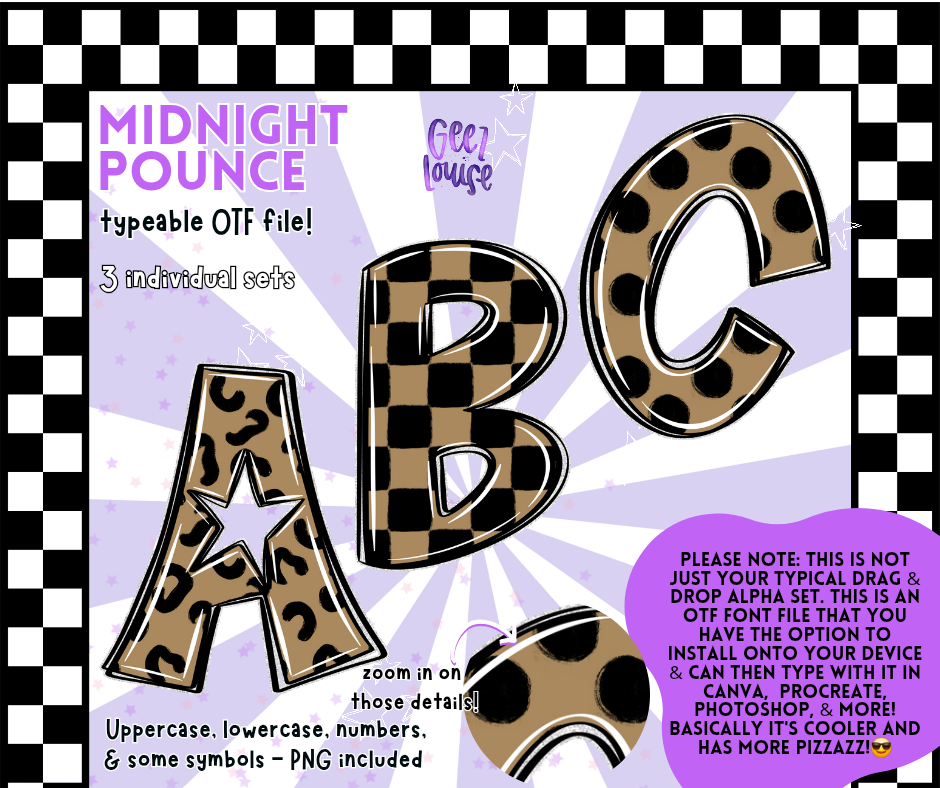
Midnight pounce (3 sets) - TYPEABLE OTF Font - Leopard & Checker Alpha Set - Digital Download- PNG +OTF
Go wild with Midnight Pounce, a fierce and fabulous typeable OTF font bundle featuring 3 individual alpha sets in bold leopard, checkered, and polka dot styles. This versatile font includes uppercase, lowercase, numbers, and some symbols—all in a high-resolution PNG format plus installable OTF files.
Whether you're designing edgy apparel, bold branding, or fun digital content, Midnight Pounce gives your projects that trendy animal print pop. Use it in Canva, Procreate, Photoshop, and more to create standout graphics with serious personality.
• 3 unique alpha styles
Add a splash of sass and wild flair to your digital creations with Midnight Pounce!